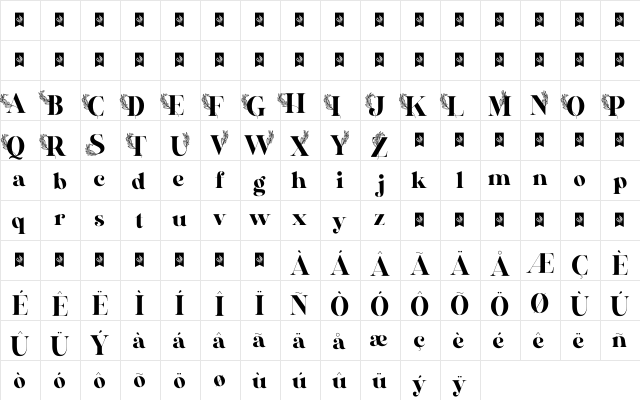
Veshion Font Preview
Veshion
Design Context for Veshion Typeface
Veshion is a composed and adaptable typeface that performs quietly and consistently across a wide range of design contexts.